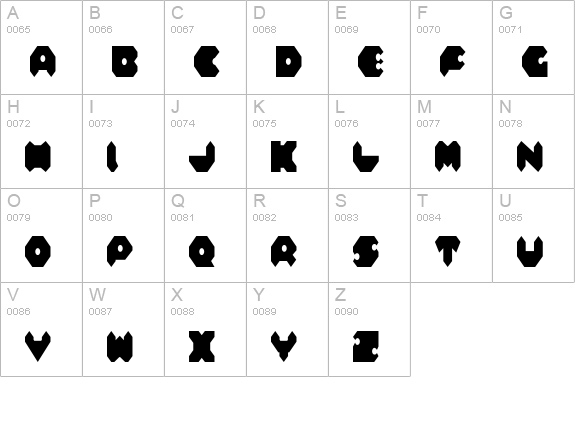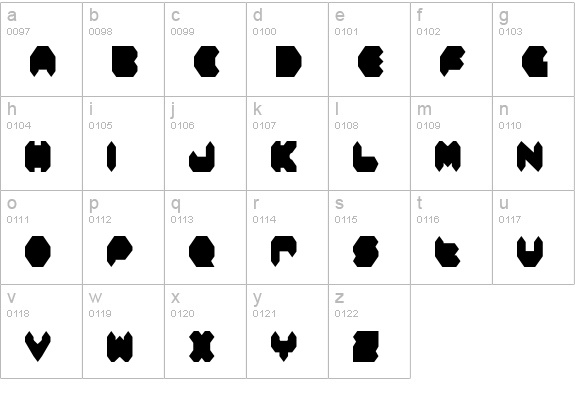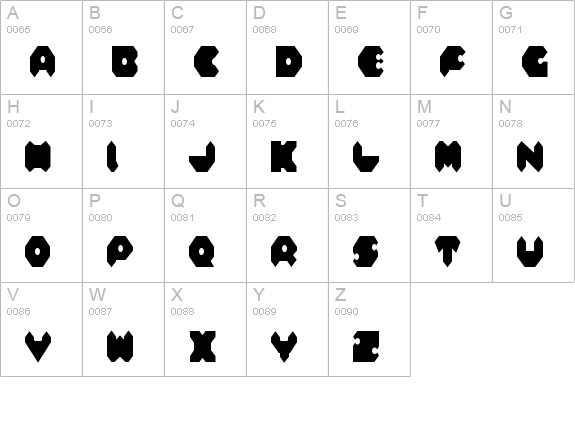
Feldercarb Condensed Font Details
Feldercarb Condensed is a distinctive, condensed-width variant in the Feldercarb typeface family \xE2\x80\x94 well suited to design and typography projects.
Feldercarb Condensed font is a sleek and modern typeface that exudes sophistication and elegance. Its condensed design makes it perfect for titles, headlines, and other display purposes where space is limited. The sharp, clean lines of this font give it a contemporary look that is sure to make your designs stand out. What's even better is that Feldercarb Condensed font is completely free to download at FontsMarket.com. This means you can elevate your projects with this stunning font without having to spend a penny. So why wait? Download Feldercarb Condensed font today and add a touch of style to your designs.